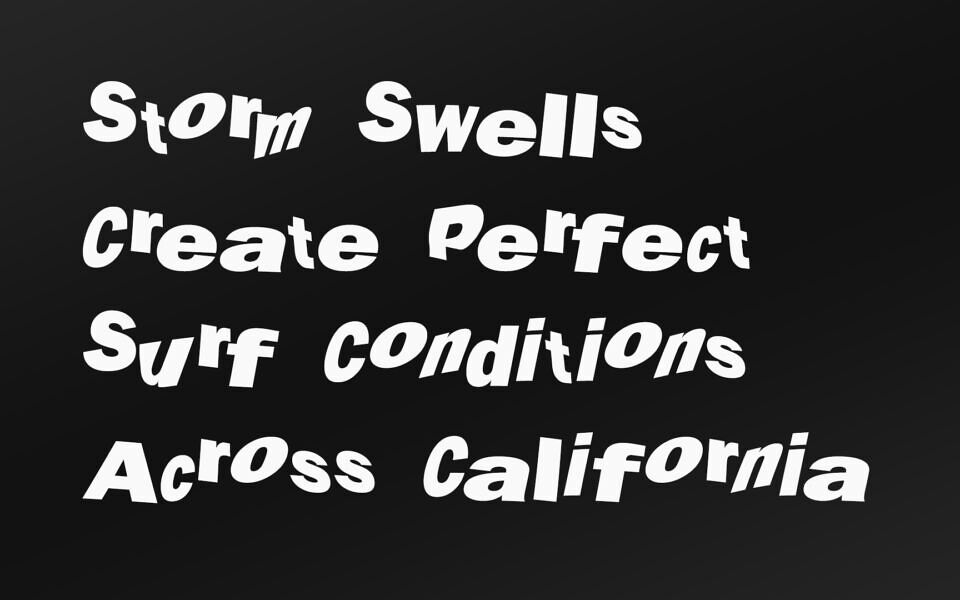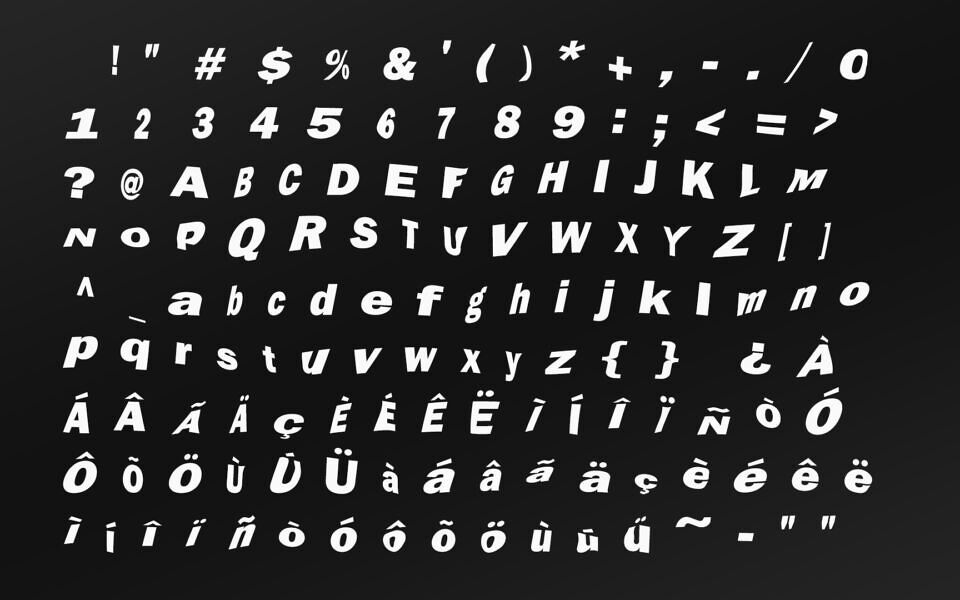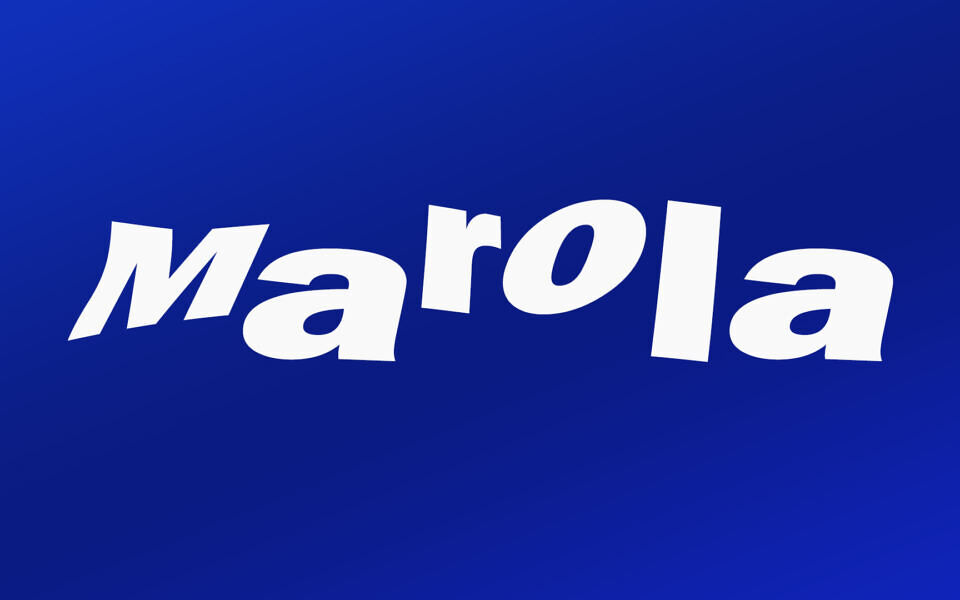
Marola Font
Marola is a playful distorted display font by Nú-Dës, featuring wavy, irregular letterforms with a hand-drawn feel. Its quirky and expressive style makes it perfect for posters, logos, album covers, Halloween themes, and creative branding projects that need a bold artistic touch. The font includes accented characters and decorative glyphs, adding extra versatility for eye-catching designs.